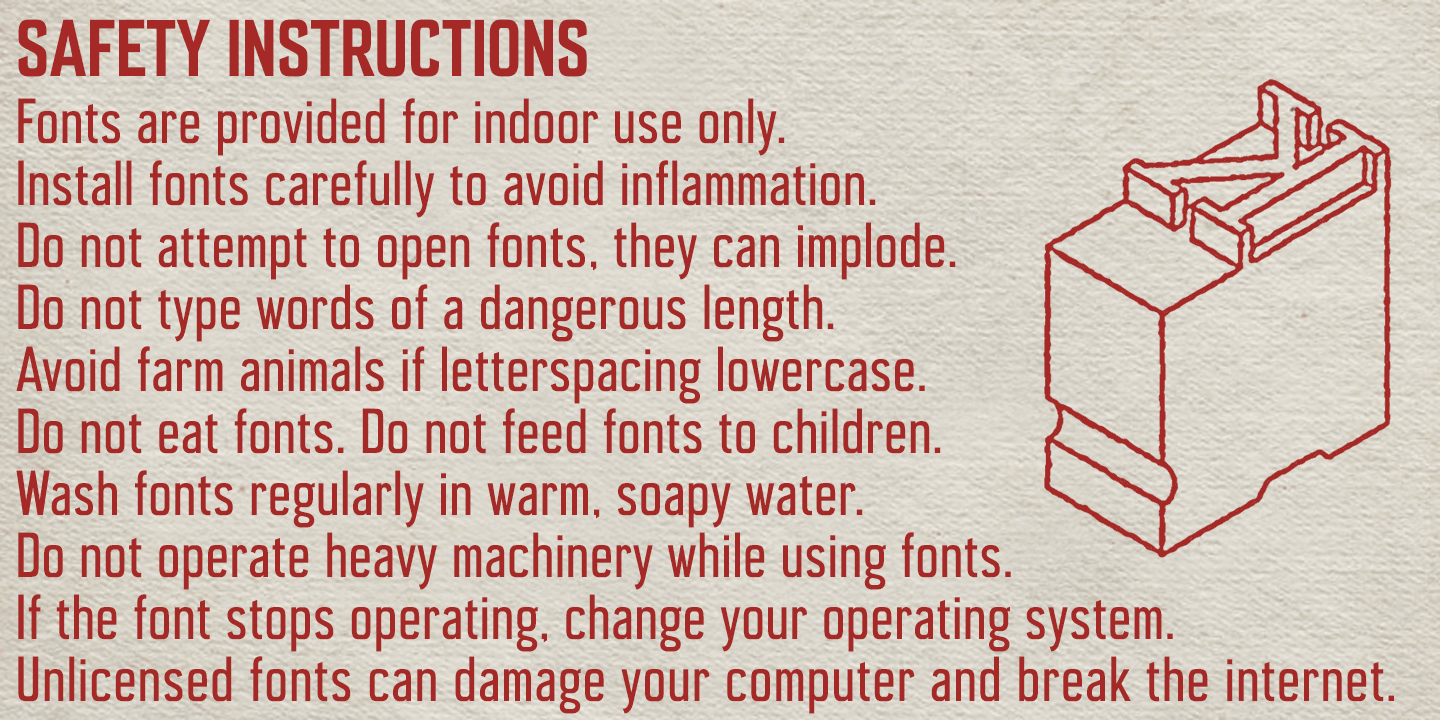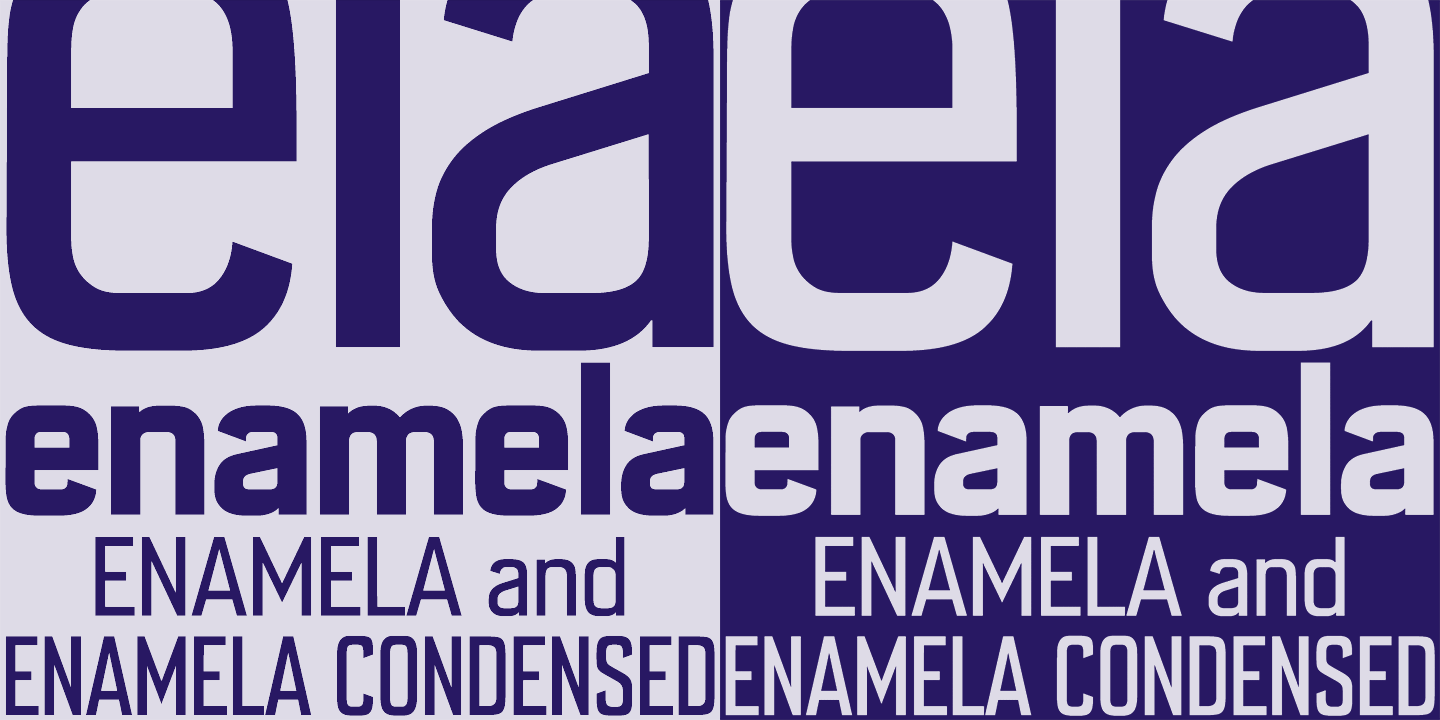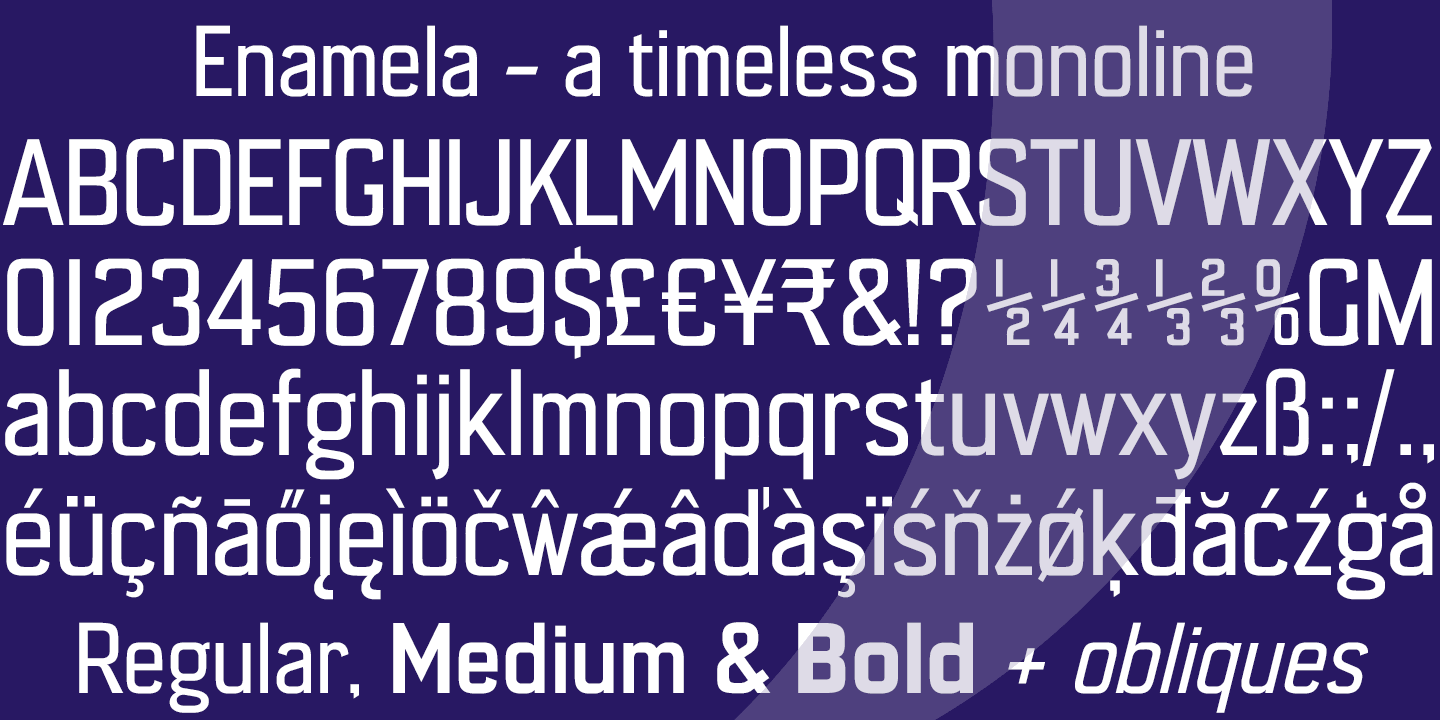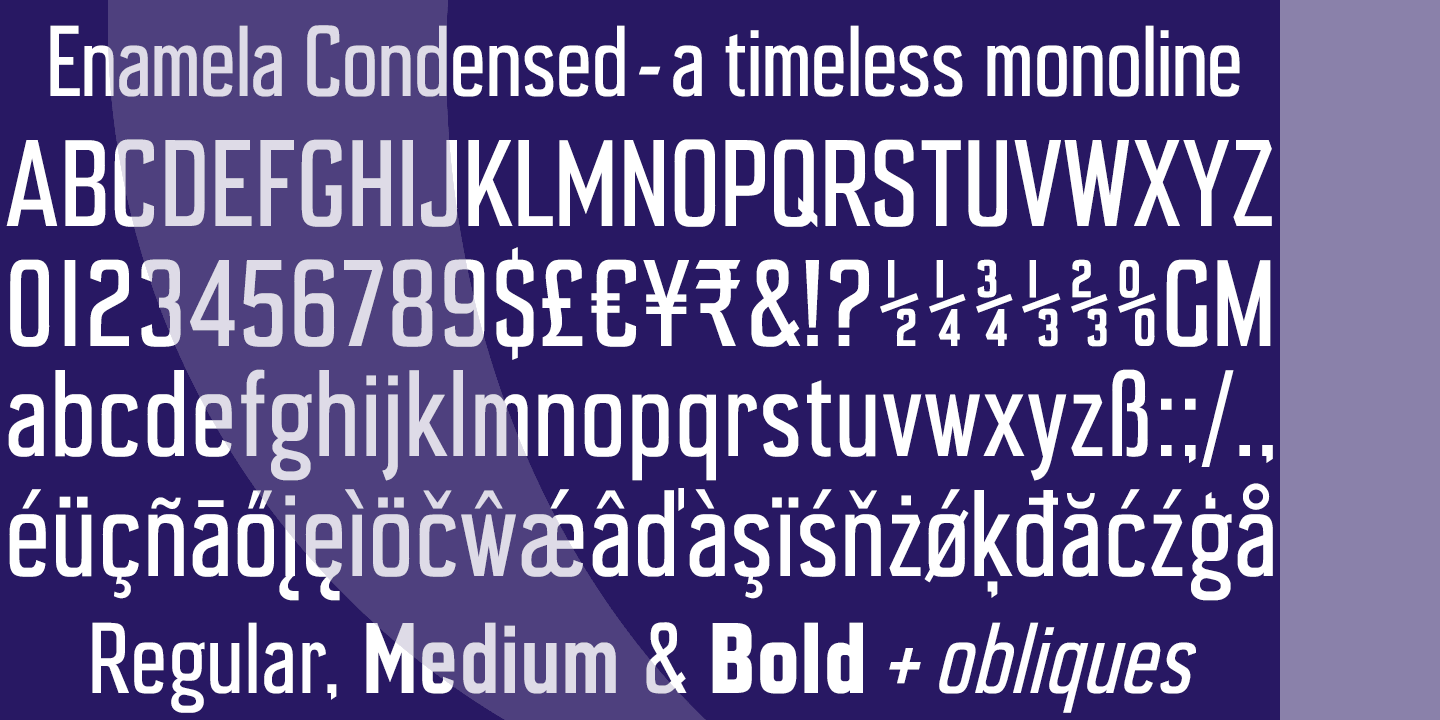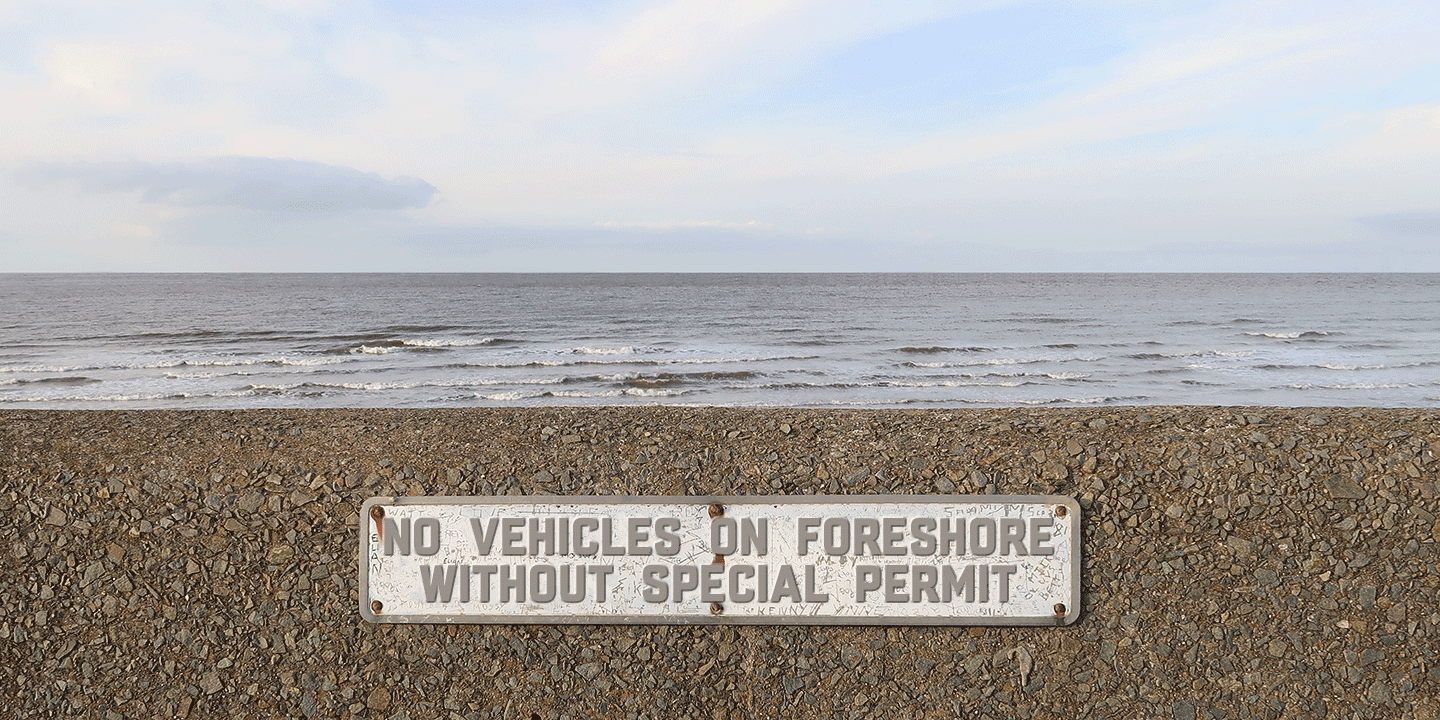
About Enamela
Enamela (rhymes with Pamela) is a monoline square sans that is available in normal width and condensed versions. Although rooted in the early years of sans serif type, the Enamela fonts have a timeless quality that is practical and unpretentious. The…